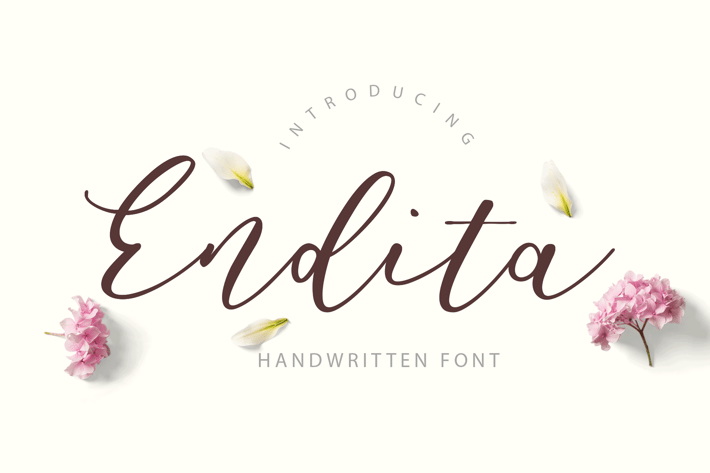
Endita Handwritten Font
Endita font perfectly suite for your DIY project like wedding invitations, greeting cards, identity, packaging design, photos, posters, bags, logos, branding, quotes, website, banners and more graphics projects.
A standard Font set including uppercase, lowercase, figures and punctuation characters. Also with special features like alternates, ligatures, discretionary ligatures, and stylistic alternates.